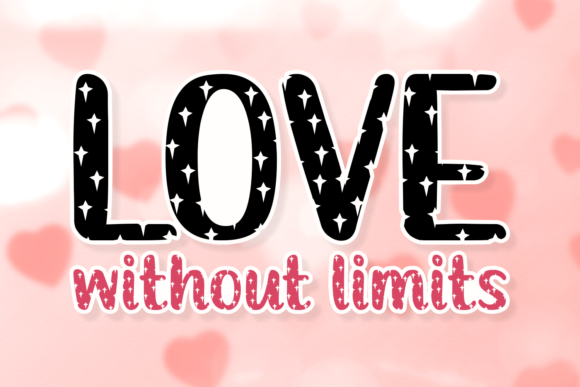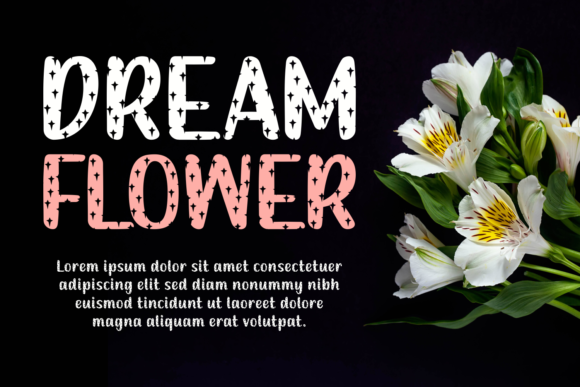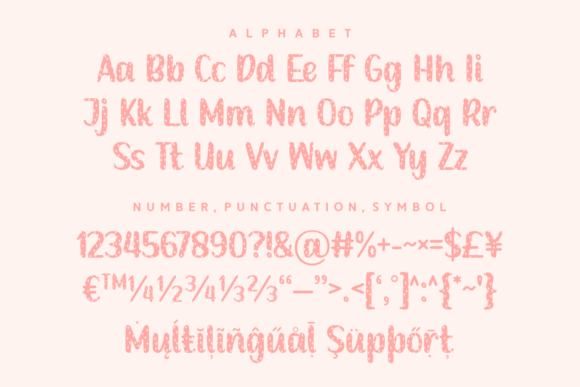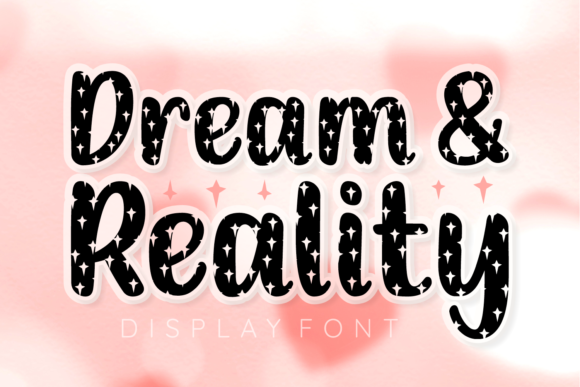
Dream and Reality Font: A Stunning Display Font for Your Creative Projects
Are you tired of using the same old fonts for your creative projects? Look no further than the Dream and Reality Font, a stunning display font that is sure to make your designs stand out from the crowd. With its starry characters and impressive flair, this font is perfect for designers and crafters who want to add a touch of magic to their work.
What Makes Dream and Reality Font So Special?
Dream and Reality Font is a one-of-a-kind font that is designed to make a statement. Its unique starry characters give it a whimsical and dreamy feel, while its bold and impressive flair makes it perfect for headlines, titles, and other design elements that need to stand out. Whether you’re working on a logo, a poster, or a social media graphic, this font is sure to grab attention and leave a lasting impression.
Key Features of Dream and Reality Font
• Stunning Display Font: Dream and Reality Font is a display font that is designed to make a statement. Its bold and impressive characters are perfect for headlines, titles, and other design elements that need to stand out.
• Starry Characters: The font features starry characters that give it a whimsical and dreamy feel. This unique feature makes it perfect for designs that require a touch of magic.
• Impressive Flair: The font has an impressive flair that makes it perfect for designs that require a bold and eye-catching element.
• High-Quality Design: The font is designed with high-quality and precision, making it perfect for professional designs.
How to Use Dream and Reality Font in Your Designs
Using Dream and Reality Font in your designs is easy. Here are a few tips to get you started:
• Use it as a Headline Font: Use Dream and Reality Font as a headline font to grab attention and make a statement.
• Add it to Your Logo: Add Dream and Reality Font to your logo to give it a unique and memorable touch.
• Use it in Social Media Graphics: Use Dream and Reality Font in your social media graphics to make them stand out and grab attention.
• Experiment with Different Colors: Experiment with different colors to find the perfect combination that works with your design.
Why Designers and Crafters Love Dream and Reality Font
Designers and crafters love Dream and Reality Font for many reasons. Here are a few:
• Unique and Creative: Dream and Reality Font is a unique and creative font that allows designers and crafters to add a touch of magic to their work.
• Easily Customizable: The font is easily customizable, making it perfect for designers and crafters who want to experiment with different styles and combinations.
• High-Quality Design: The font is designed with high-quality and precision, making it perfect for professional designs.
• Perfect for a Variety of Projects: Dream and Reality Font is perfect for a variety of projects, including logos, posters, social media graphics, and more.
Dream and Reality Font is a stunning display font that is sure to make your designs stand out from the crowd. With its starry characters and impressive flair, this font is perfect for designers and crafters who want to add a touch of magic to their work. Whether you’re working on a logo, a poster, or a social media graphic, Dream and Reality Font is the perfect choice. So why wait? Download Dream and Reality Font today and start creating stunning designs that will leave a lasting impression!